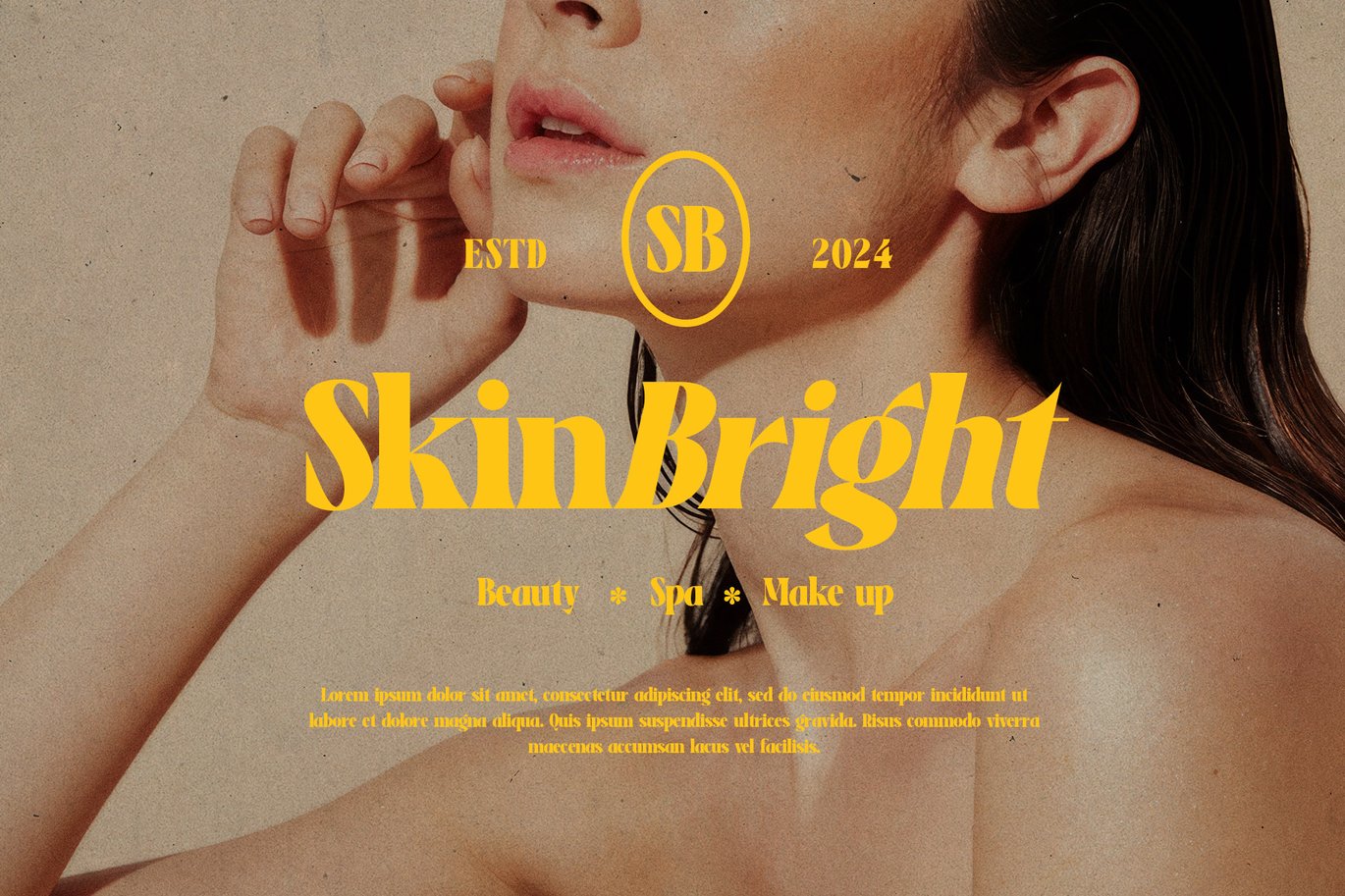
Romaben Old Vintage Serif Font
Romaden is elegant vintage font with nostalgic charm and prestigious shape captures the essence of the 70s 80s 90s. Romaben bring a special touch in you design project with sharp character more stylish and old-fashioned.
Romaden is a perfectly choice for any creative endeavor, chic, lifestyle design such as logos, advertisements, stationery, branding project, display and magazine, invitation, corporate brand, product design, label, business project and many other project with vintage nostalgic touch.